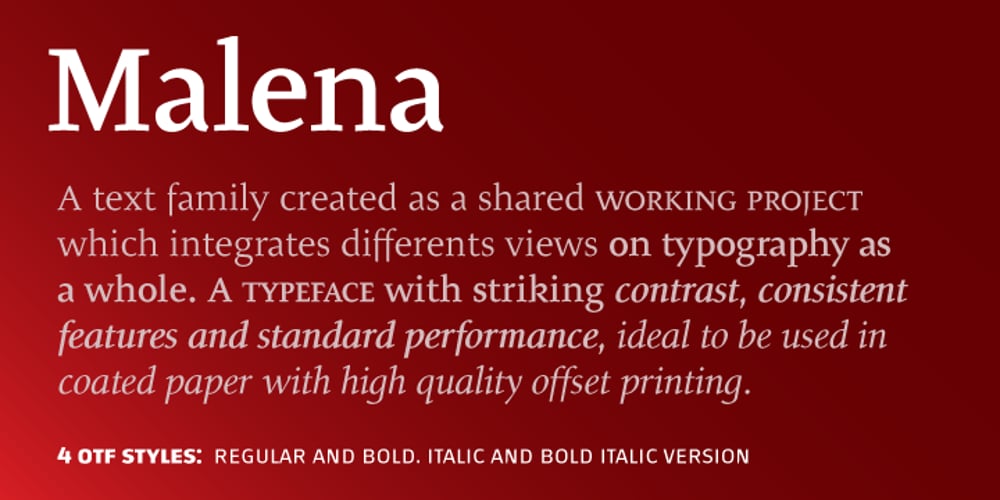
Malena
Malena font
Malena Font Family was designed by Dario Manuel Muhafara, Felix Lentino and published by Tipo. Malena contains 4 styles and family package options. Malena is a typographic family created by Lentino and Muhafara like a shared working project which integrates both views on typography as a whole. Malena is intended to be used in lengthy texts with a wide range of variables, having a striking contrast, with consistent features and standard performance, Ideal to be used in paper with very good finish.